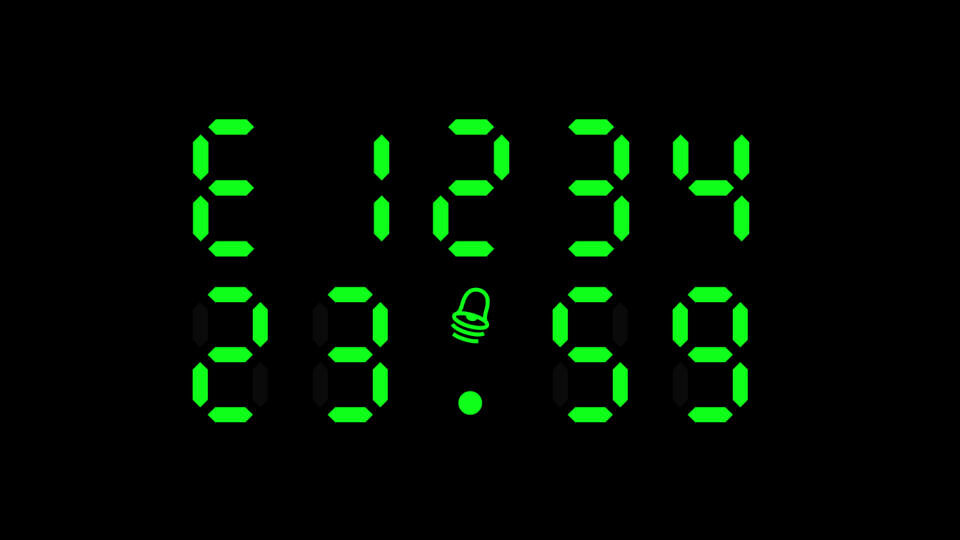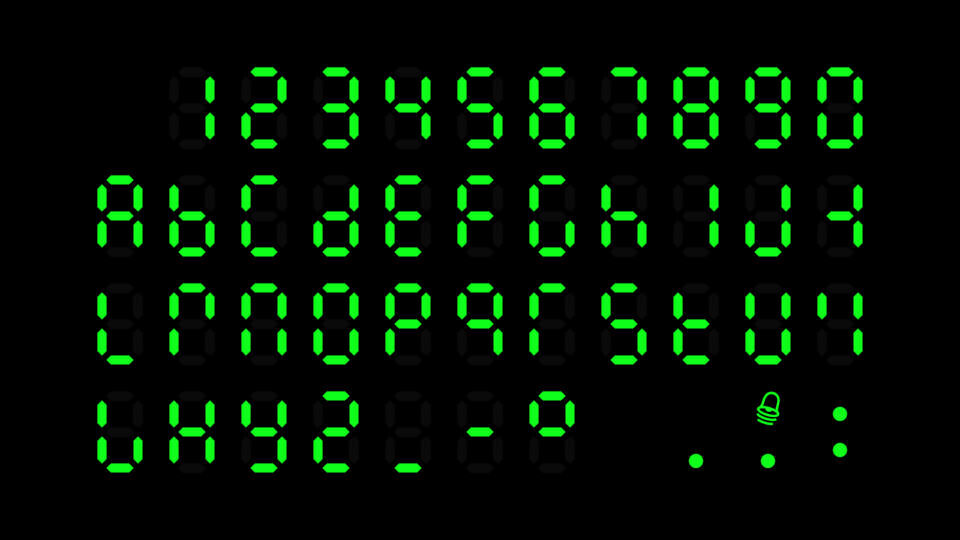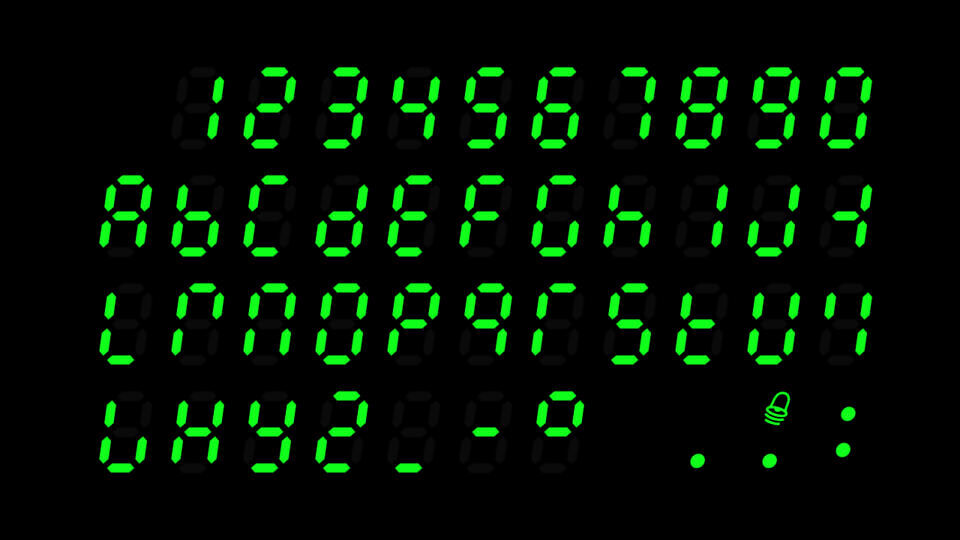
E1234 is a monospace, seven-segment display font available in Regular and Italic styles. It features 143 glyphs and offers support for seven languages, including English, Latin, and Tagalog.
This versatile font is ideal for projects requiring a digital or retro aesthetic, such as user interfaces, clocks, or retro-themed designs. The font is licensed under the SIL Open Font License 1.1, which allows it to be freely used, modified, and distributed.